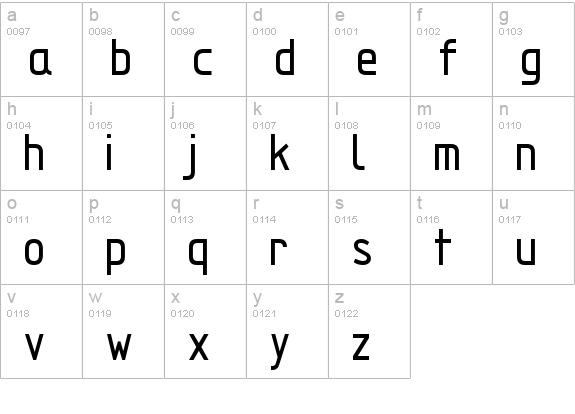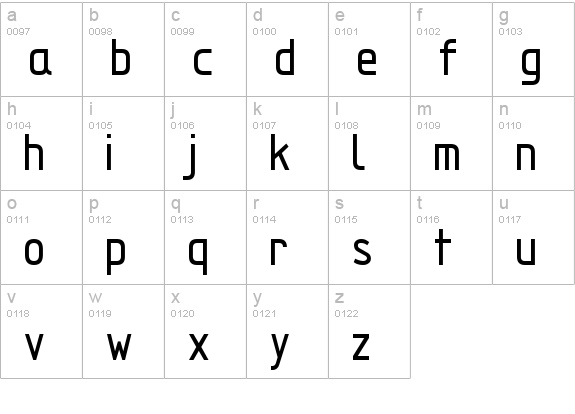
TechnicznaPomoc is a stunning and versatile font that is sure to catch the attention of any designer or typographer. With its sleek and modern design, this font is perfect for a wide range of projects, from logos and branding to headlines and posters. What sets TechnicznaPomoc apart is its unique blend of geometric shapes and elegant curves, creating a harmonious balance that is both visually appealing and legible. The clean lines and distinct letterforms make this font a joy to work with, allowing you to create professional-looking designs effortlessly. One of the best features of TechnicznaPomoc is that it is available for free download at FontsMarket.com. This means that you can access this amazing font without having to spend a penny. Whether you are a professional designer or a beginner, having access to high-quality fonts like TechnicznaPomoc can significantly enhance your creative projects. The versatility of TechnicznaPomoc is another reason why it is a must-have font in your collection. It works well in both print and digital media, making it suitable for a wide range of applications. Whether you are designing a website, a brochure, or a magazine layout, TechnicznaPomoc will bring a touch of elegance and modernity to your designs. If you are looking for a font that combines style, functionality, and affordability, TechnicznaPomoc is the perfect choice. Its sleek design, legibility, and availability for free download make it an excellent addition to any designer's toolbox. Don't miss out on the opportunity to add this remarkable font to your collection. Head over to FontsMarket.com and get your hands on TechnicznaPomoc today.